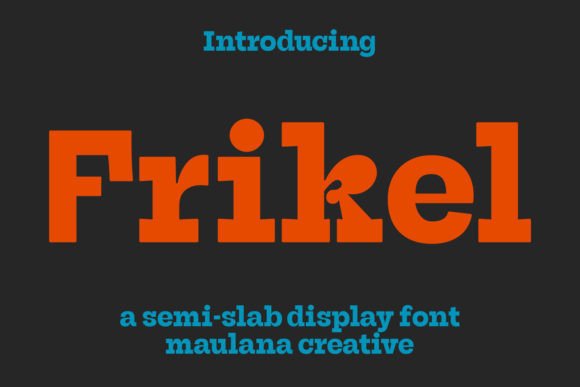
Unleash your creativity with Frikel Font, the ultimate display font that captures the essence of vintage signage. This remarkable font family, meticulously crafted by Maulana Creative, embodies the charm and nostalgia of bygone eras, transporting you to a world of classic typography.
Immerse yourself in the beauty of Frikel Font, a semi-slab sans display font that exudes elegance and sophistication. Its carefully designed characters, reminiscent of hand-painted signs, add a touch of authenticity to your designs. Whether you're working on a vintage-inspired logo, a retro poster, or eye-catching social media graphics, Frikel Font has the power to transform your creations into timeless masterpieces.
Step into a world of boundless possibilities with Frikel Font. Its versatility knows no bounds, seamlessly adapting to a wide range of design projects. From branding and packaging to web design and digital marketing, Frikel Font effortlessly elevates your designs, making them stand out from the crowd. Unleash your creativity and experience the transformative power of this remarkable font.